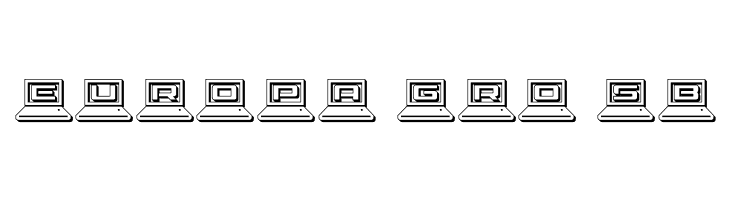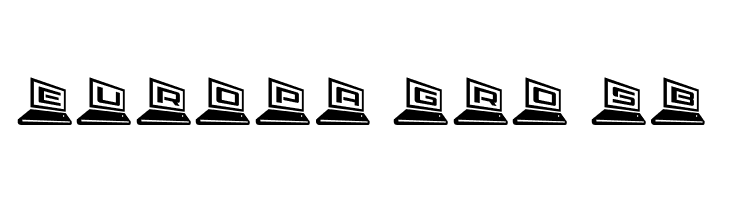
A tech-inspired font with characters encased in laptop screen outlines.
A bold, tech-inspired font with characters set in laptop icons, perfect for digital themes.
A tech-inspired font with characters embedded in stylized laptop icons.
A tech-inspired font with characters embedded in laptop icons, featuring bold, geometric shapes.